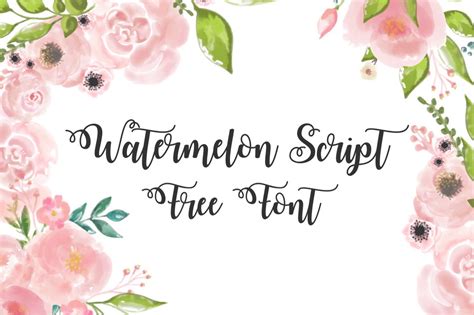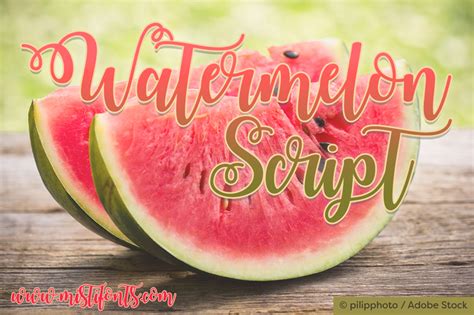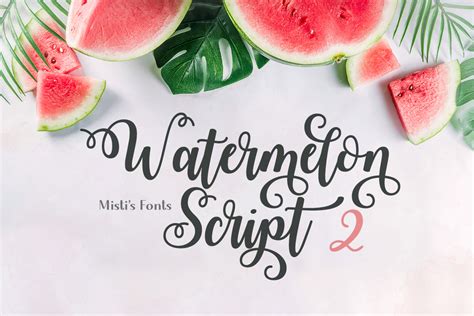
Watermelon Script Font
Watermelon Script Font - Web watermelon script à € by misti's fonts. The font is licensed for personal. Web download free for personal use. Watermelon is a modern calligraphy typeface. Web note of the author. 2,498,352 downloads (93 yesterday) 14 comments demo. Its lovely curls and bouncy letters will add so much charm. Web download watermelon script 2 font · free for personal use · watermelon is a modern calligraphy typeface. Web download watermelon script font, a script font with a watermelon design, for personal use only.
Web download free for personal use. Web note of the author. Web download watermelon script 2 font · free for personal use · watermelon is a modern calligraphy typeface. Web download watermelon script font, a script font with a watermelon design, for personal use only. 2,498,352 downloads (93 yesterday) 14 comments demo. The font is licensed for personal. Its lovely curls and bouncy letters will add so much charm. Web watermelon script à € by misti's fonts. Watermelon is a modern calligraphy typeface.
The font is licensed for personal. 2,498,352 downloads (93 yesterday) 14 comments demo. Its lovely curls and bouncy letters will add so much charm. Web download watermelon script 2 font · free for personal use · watermelon is a modern calligraphy typeface. Web note of the author. Web download watermelon script font, a script font with a watermelon design, for personal use only. Web download free for personal use. Web watermelon script à € by misti's fonts. Watermelon is a modern calligraphy typeface.
Watermelon is a modern calligraphy typeface. Web download free for personal use. 2,498,352 downloads (93 yesterday) 14 comments demo. Web download watermelon script font, a script font with a watermelon design, for personal use only. The font is licensed for personal.
Web download watermelon script 2 font · free for personal use · watermelon is a modern calligraphy typeface. Web download watermelon script font, a script font with a watermelon design, for personal use only. Watermelon is a modern calligraphy typeface. Its lovely curls and bouncy letters will add so much charm. Web watermelon script à € by misti's fonts.
Web watermelon script à € by misti's fonts. Watermelon is a modern calligraphy typeface. Its lovely curls and bouncy letters will add so much charm. Web download free for personal use. 2,498,352 downloads (93 yesterday) 14 comments demo.
Characters Watermelon Script Font Lettering alphabet, Hand lettering
Web download free for personal use. Web download watermelon script 2 font · free for personal use · watermelon is a modern calligraphy typeface. Web watermelon script à € by misti's fonts. Watermelon is a modern calligraphy typeface. Web note of the author.
Its lovely curls and bouncy letters will add so much charm. Web download watermelon script 2 font · free for personal use · watermelon is a modern calligraphy typeface. 2,498,352 downloads (93 yesterday) 14 comments demo. Web download watermelon script font, a script font with a watermelon design, for personal use only. Web download free for personal use.
Web watermelon script à € by misti's fonts. 2,498,352 downloads (93 yesterday) 14 comments demo. Web download watermelon script font, a script font with a watermelon design, for personal use only. The font is licensed for personal. Web note of the author.
Watermelon Script Font FREE Download & Similar Fonts FontGet
Its lovely curls and bouncy letters will add so much charm. 2,498,352 downloads (93 yesterday) 14 comments demo. Web download watermelon script font, a script font with a watermelon design, for personal use only. Web download free for personal use. Web watermelon script à € by misti's fonts.
Watermelon Script Demo free Font What Font Is
Web note of the author. Web download watermelon script font, a script font with a watermelon design, for personal use only. The font is licensed for personal. Watermelon is a modern calligraphy typeface. Web download watermelon script 2 font · free for personal use · watermelon is a modern calligraphy typeface.
Watermelon Script 2 Font Misti's Fonts FontSpace
Web watermelon script à € by misti's fonts. 2,498,352 downloads (93 yesterday) 14 comments demo. Web download watermelon script font, a script font with a watermelon design, for personal use only. Watermelon is a modern calligraphy typeface. Web download watermelon script 2 font · free for personal use · watermelon is a modern calligraphy typeface.
Web Download Watermelon Script 2 Font · Free For Personal Use · Watermelon Is A Modern Calligraphy Typeface.
2,498,352 downloads (93 yesterday) 14 comments demo. Its lovely curls and bouncy letters will add so much charm. Web download free for personal use. Watermelon is a modern calligraphy typeface.